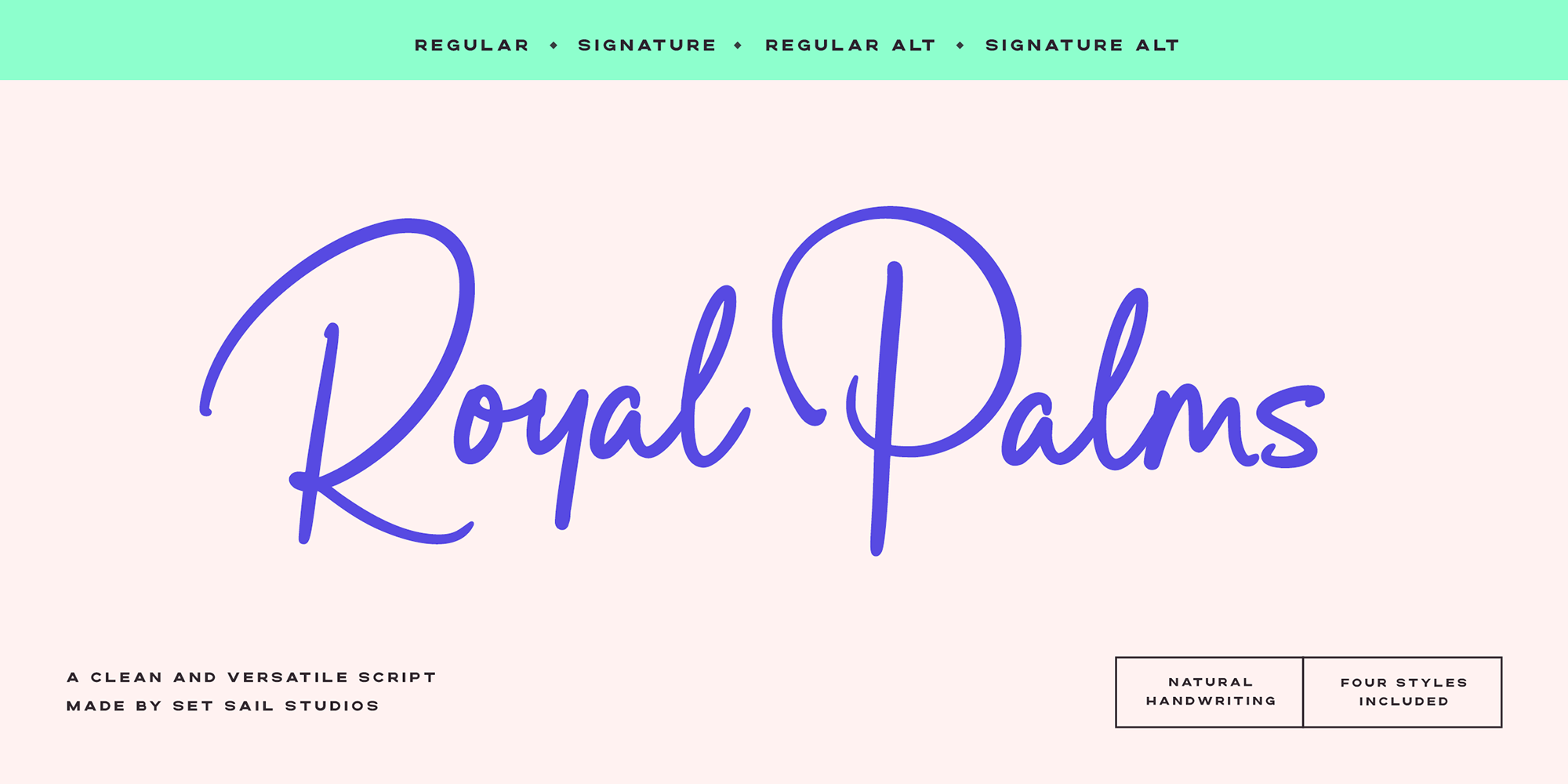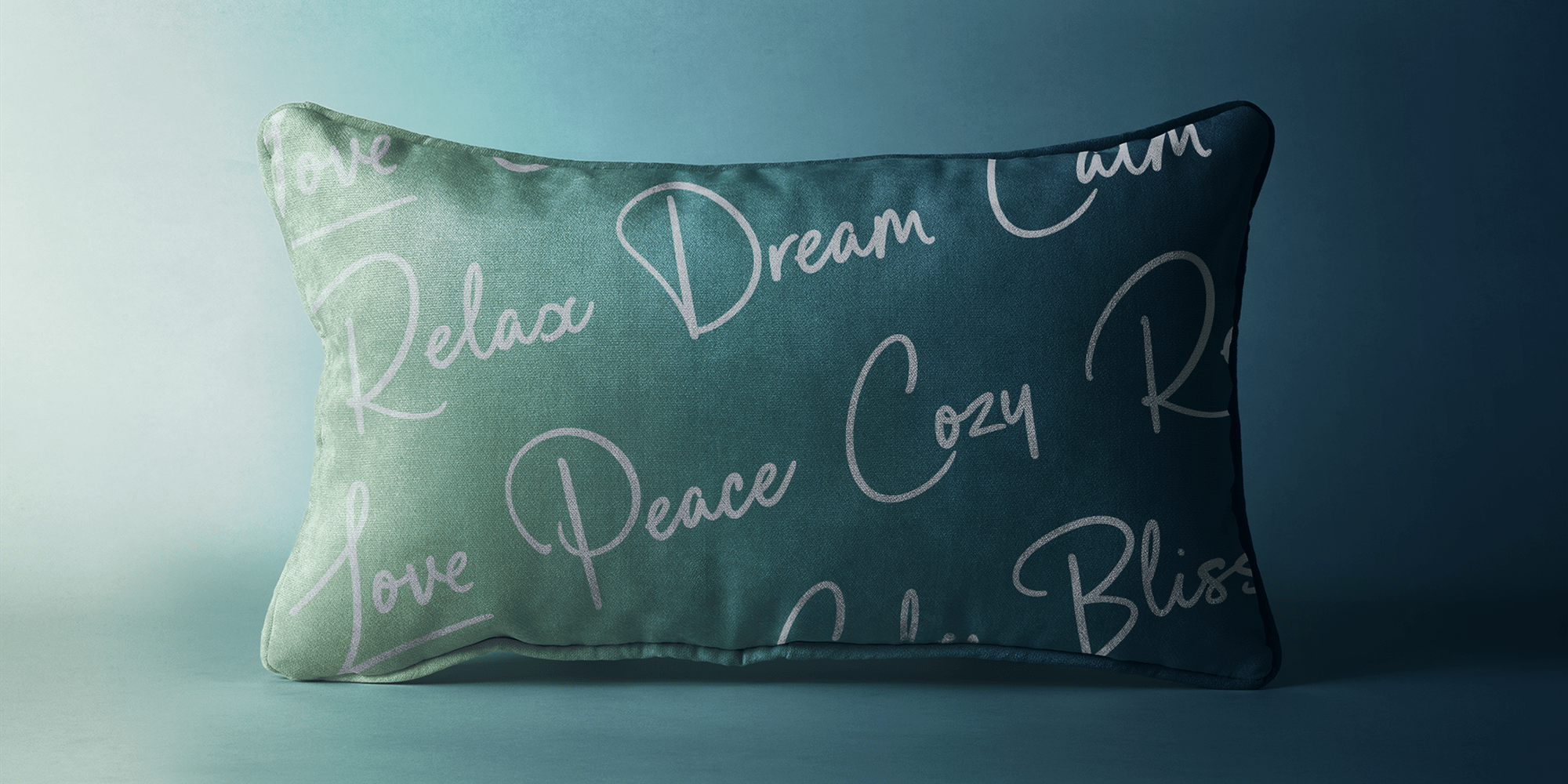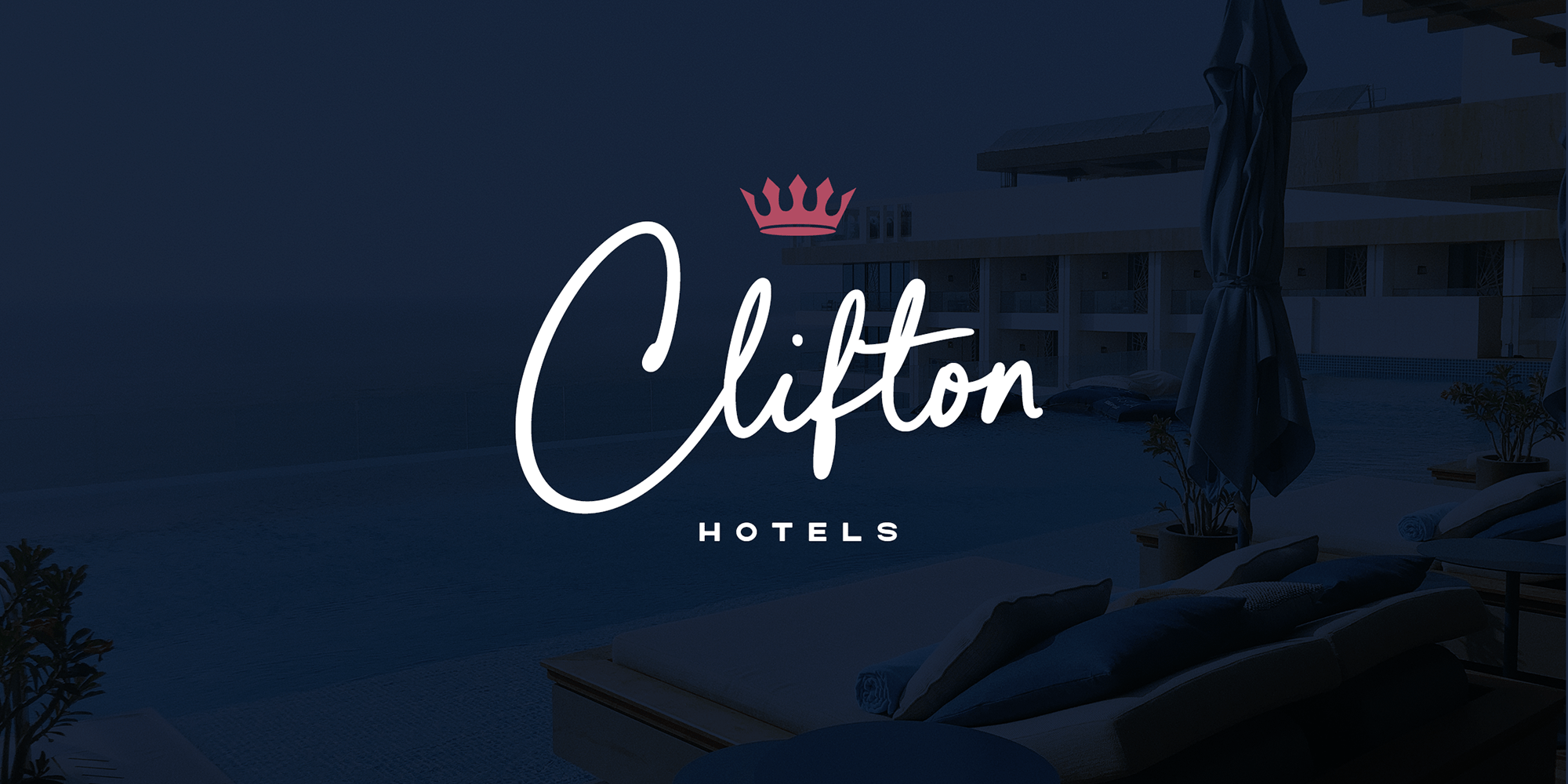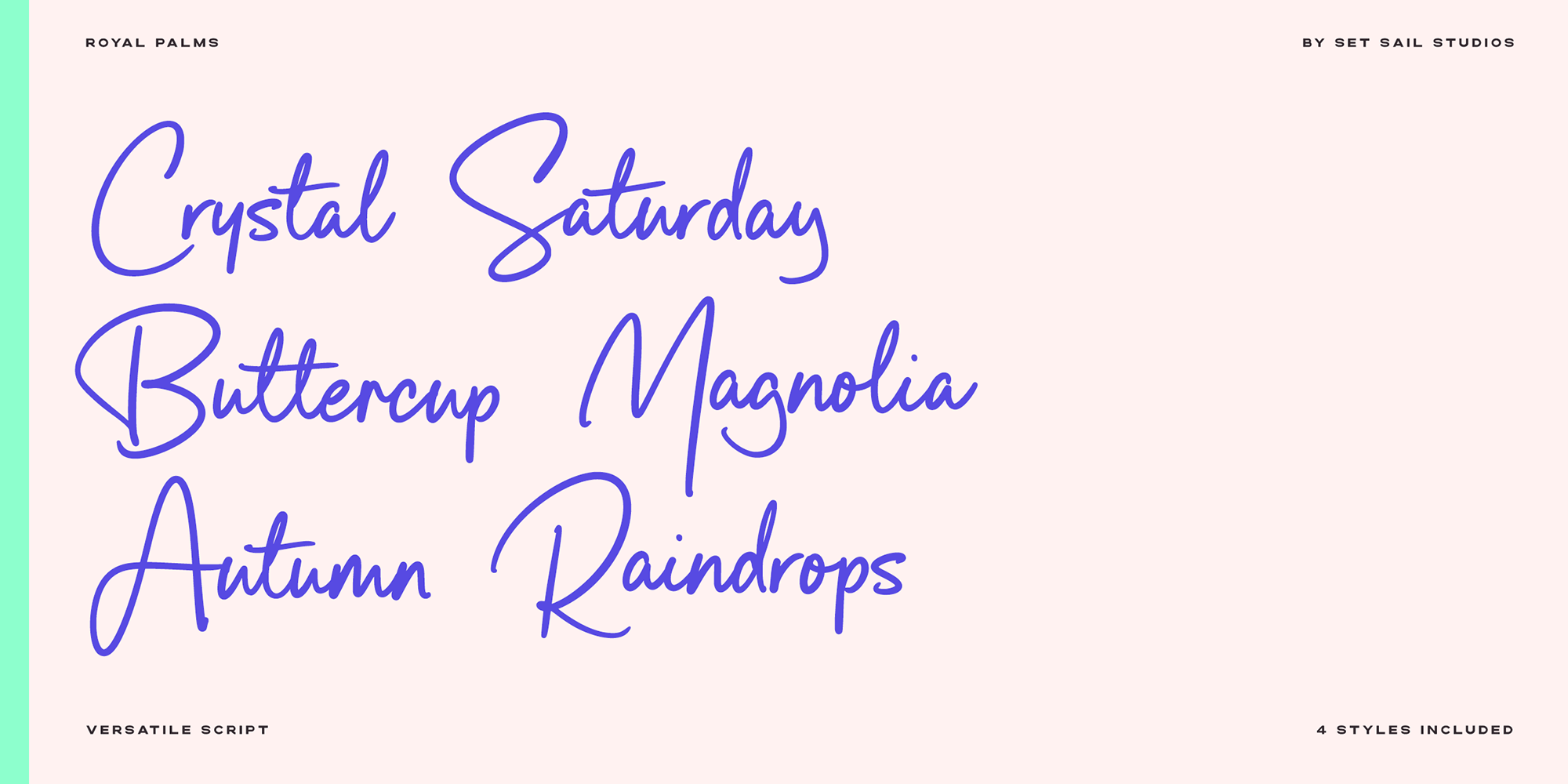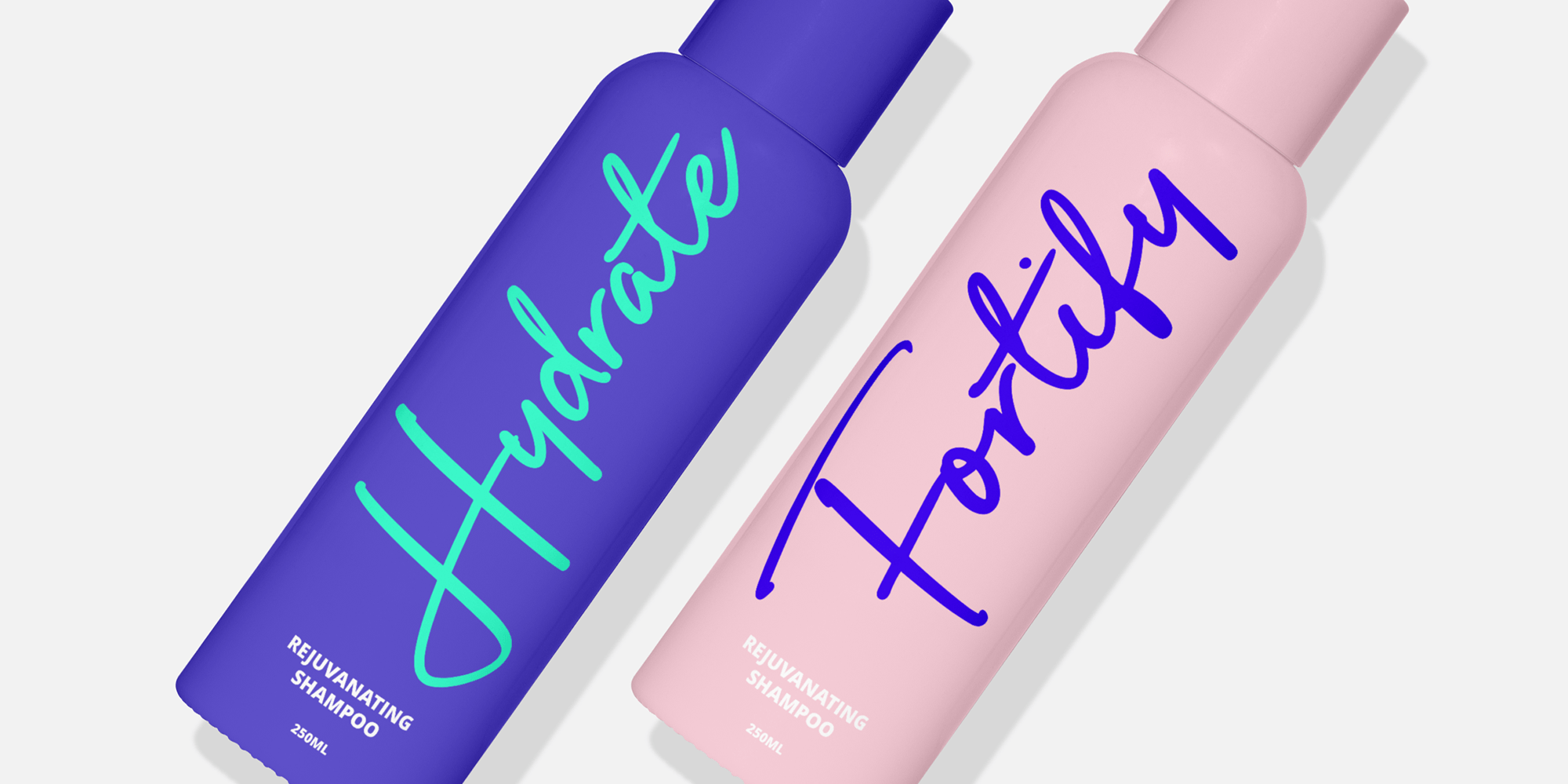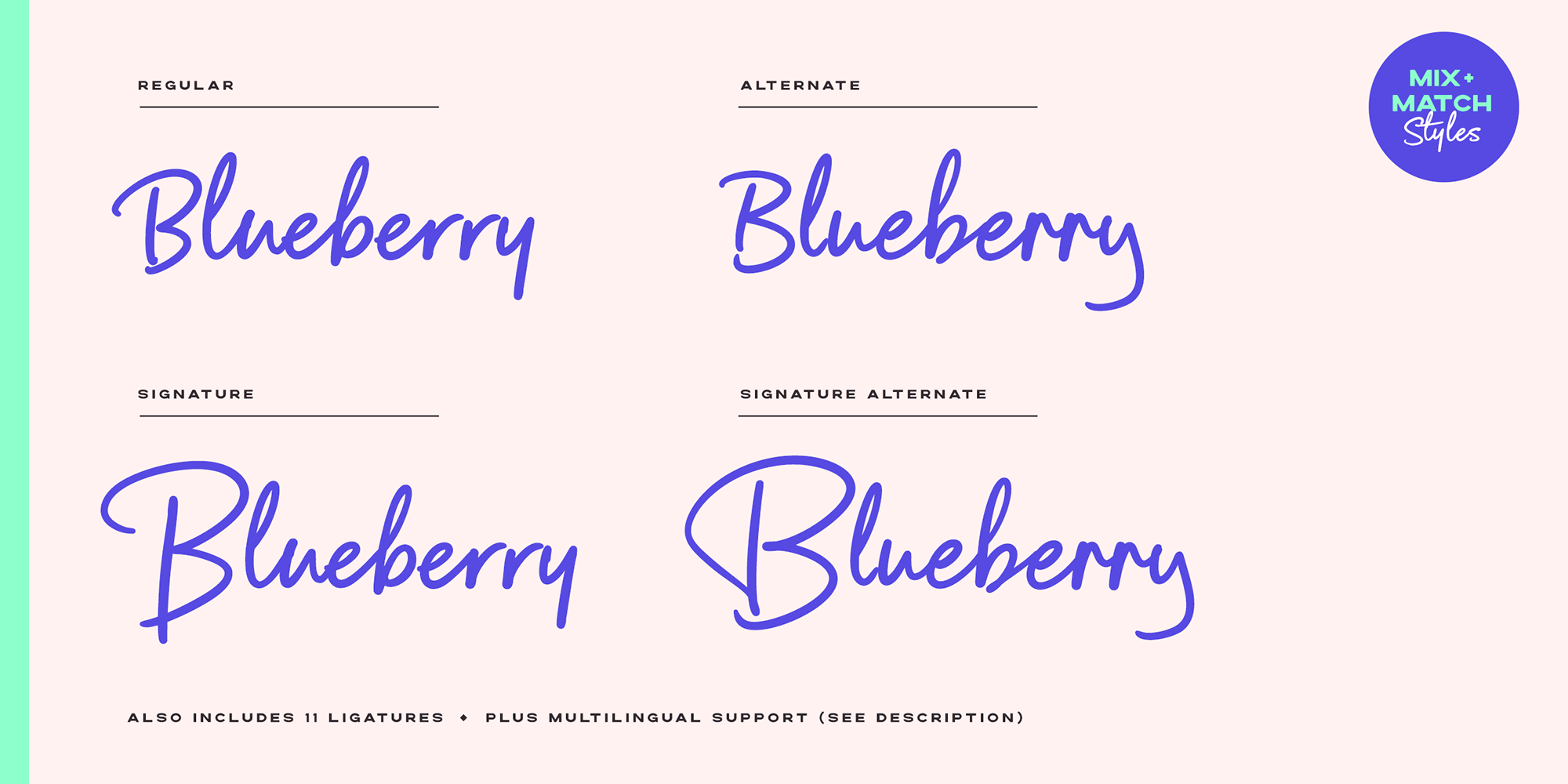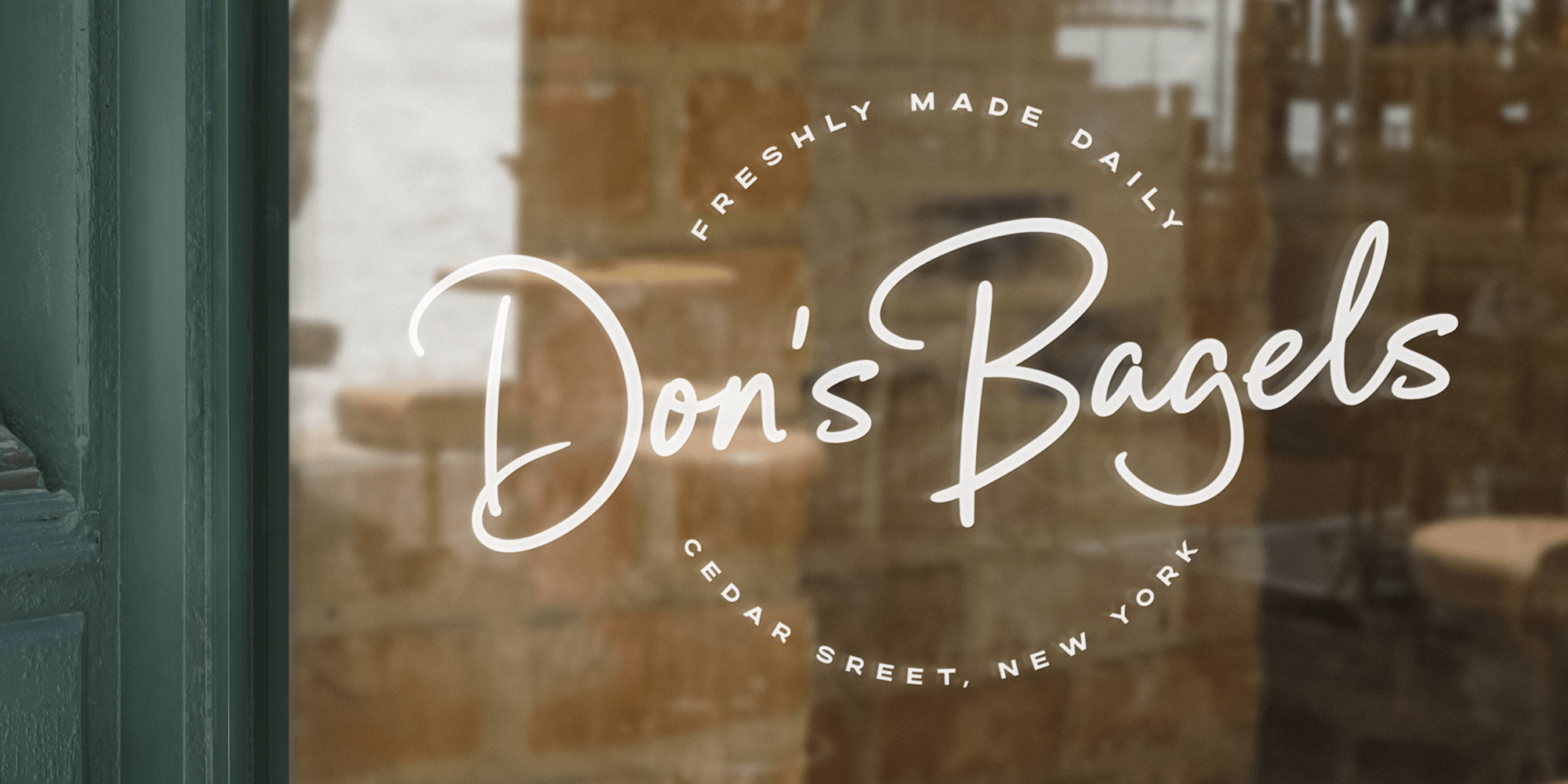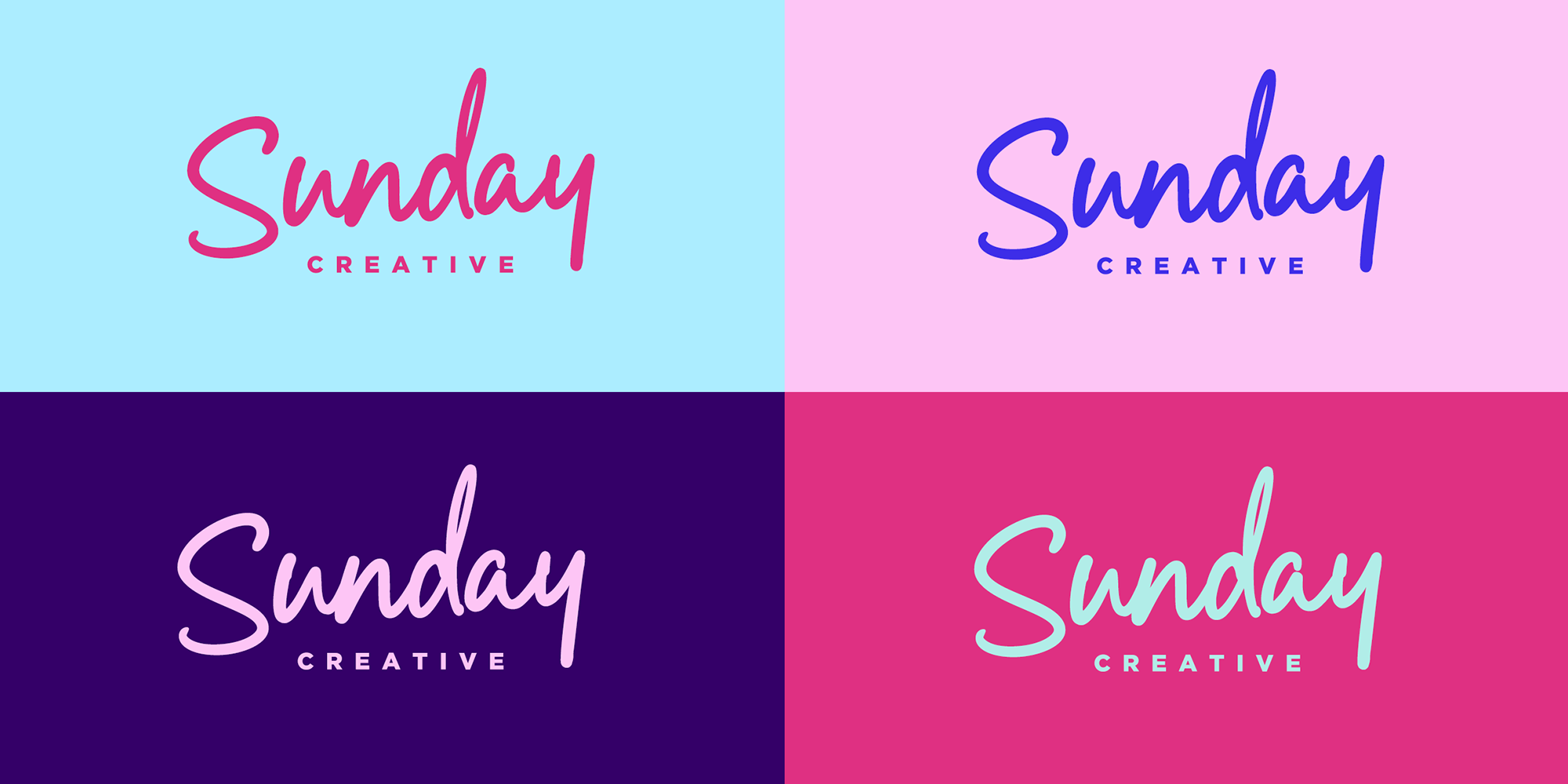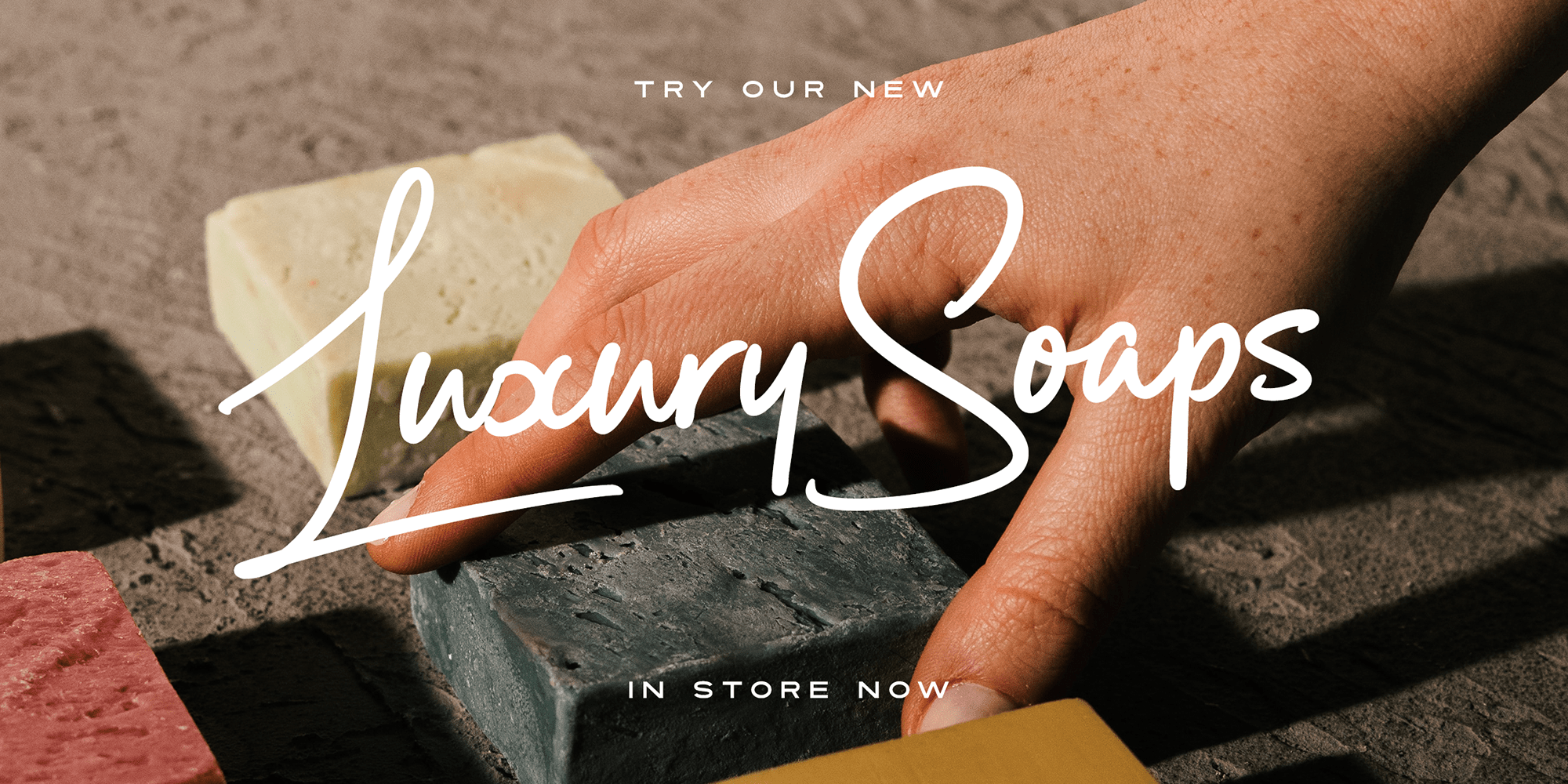
Royal Palms
Font Family by Set Sail Studios
Let the natural letterforms flow with Royal Palms, a clean & casual script font by Set Sail Studios. The Royal Palms family includes four fonts; The Signature version contains a larger, more exaggerated set of capital letters which is perfect for signature-style logos and display text. The Regular version offers a more practical set of smaller capital letters, for use when space is more limited. Both the Regular and Signature styles include a full set of alternate characters available as their own separate fonts, which can be used for an alternative word layout, or to mix and match with the regular versions to create a more customised look. It’s a timeless script set which is equipped to tackle a variety of design briefs for years to come.
Standard Ligatures • ti, tt, tl, ll, lt, ve, ov, wr, ox, nx, wx, rx.